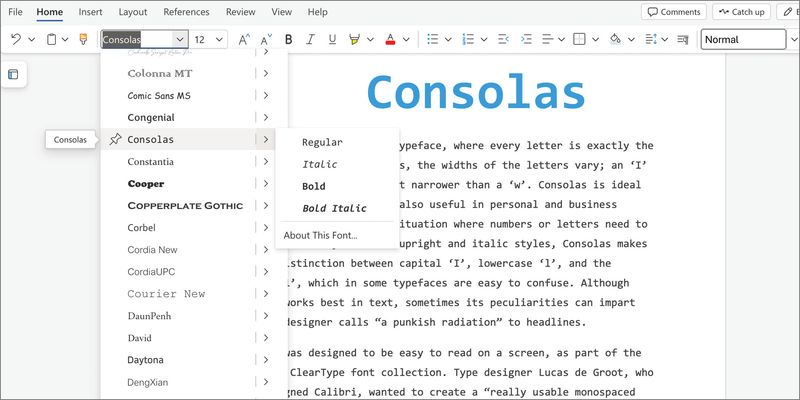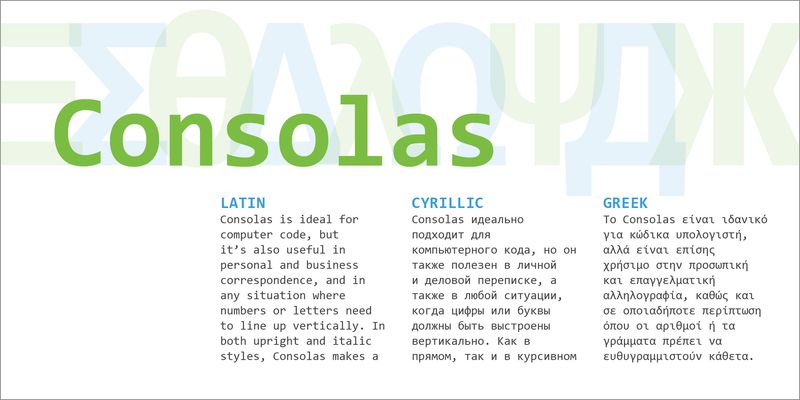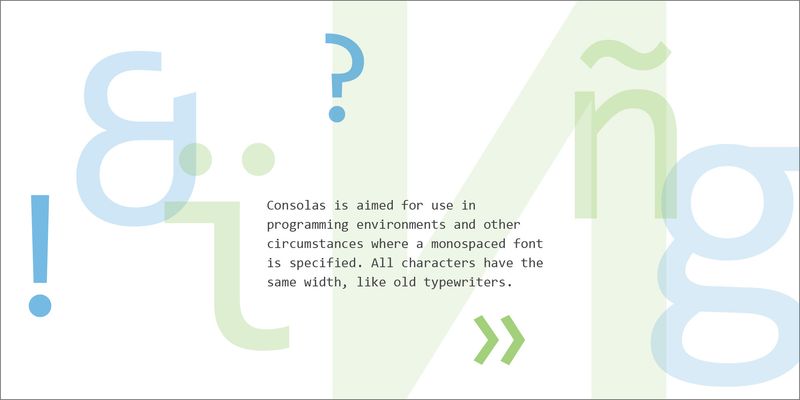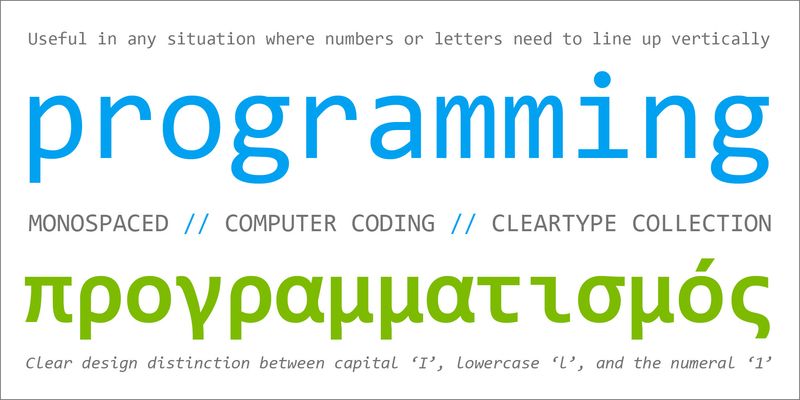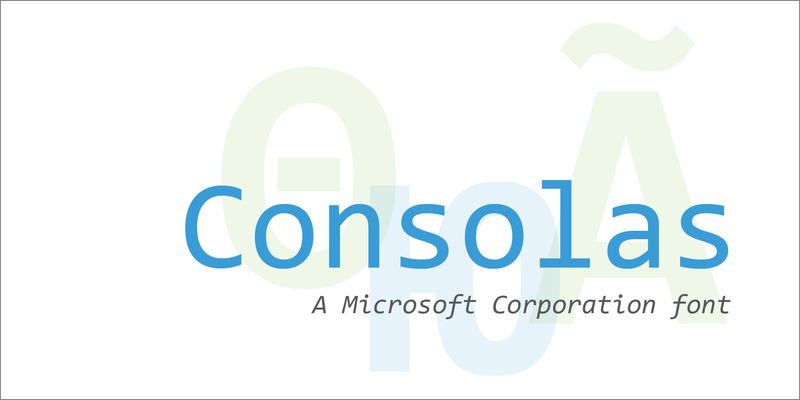
Consolas is a “monospaced” typeface, where every letter is exactly the same width. In most typefaces, the widths of the letters vary; an ‘I’ for instance is usually a lot narrower than a ‘w’. Consolas is ideal for computer code, but it’s also useful in personal and business correspondence, and in any situation where numbers or letters need to line up vertically. In both upright and italic styles, Consolas makes a clear distinction between capital ‘I’, lowercase ‘l’, and the numeral ‘1’, which in some typefaces are easy to confuse. Although Consolas works best in text, sometimes its peculiarities can impart what its designer calls “a punkish radiation” to headlines.
Consolas was designed to be easy to read on a screen, as part of the Microsoft ClearType font collection. Type designer Lucas de Groot, who also designed Calibri, wanted to create a “really usable monospaced typeface.” The proportions of Consolas are more comfortably readable than the very wide proportions of an older monospaced typeface like Courier New.